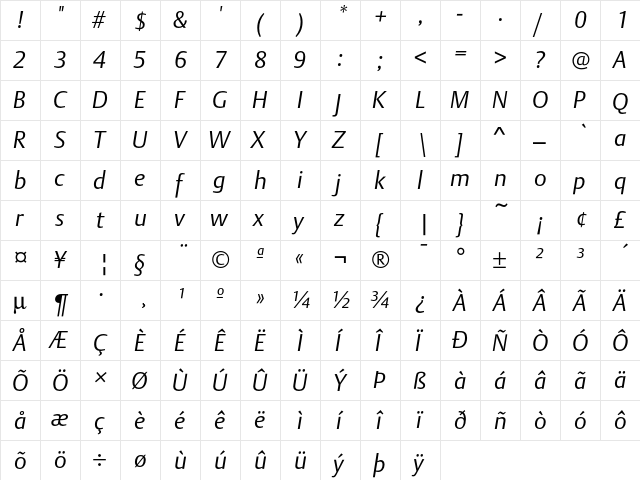
DTL Argo T Light Italic
Design Context for DTL Argo Typeface
DTL Argo is a composed and adaptable typeface that performs quietly and consistently across a wide range of design contexts. The slanted form adds forward momentum and visual energy. Its slender proportions lend an understated elegance to any composition.
Pro Tip: Try DTL Argo for annotation and caption copy alongside an upright companion — the contrast in angle creates a dynamic but ordered typographic system.